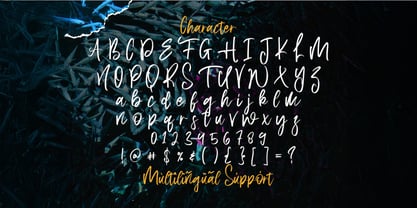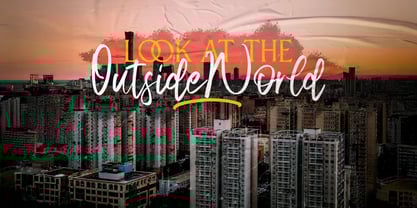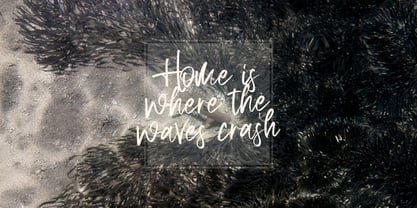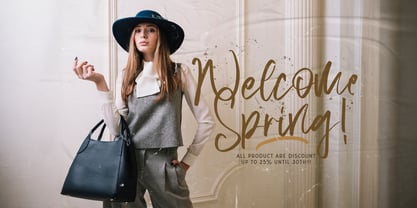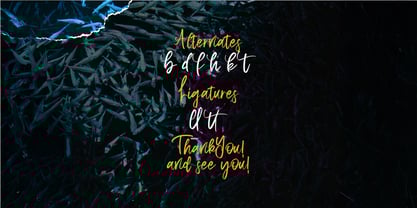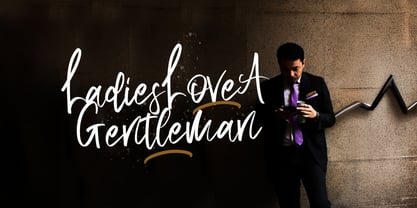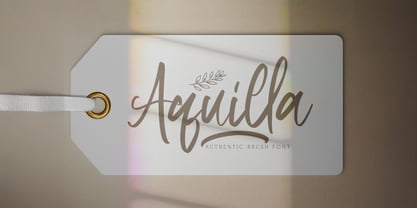
The Aquilla Font Family was designed by Virgiawan Listanto and published by Stringlabs Creative Studio. Aquilla contains 1 styles.
Aquilla is stunning brush script font that effortlessly blends elegance with a touch of artistry. With its fluid, hand-lettered strokes and natural brush texture, Aquilla captures the beauty of authentic, free-flowing script while maintaining a modern and sophisticated vibe.
Aquilla